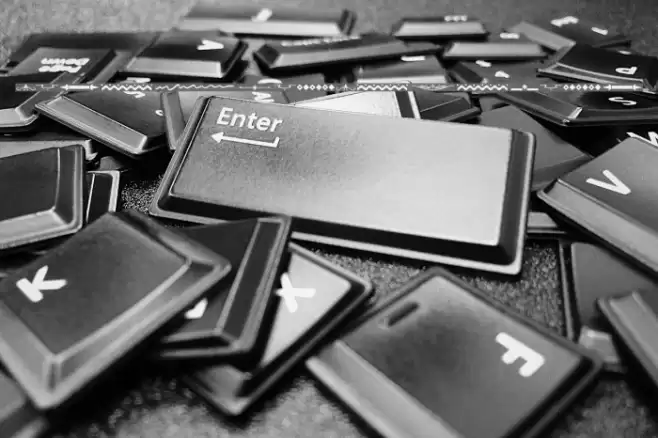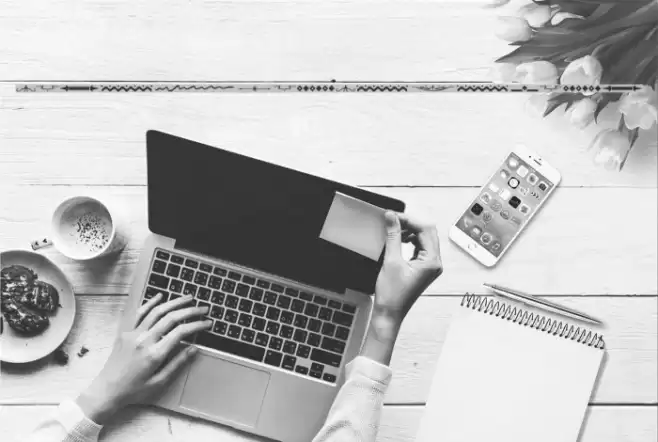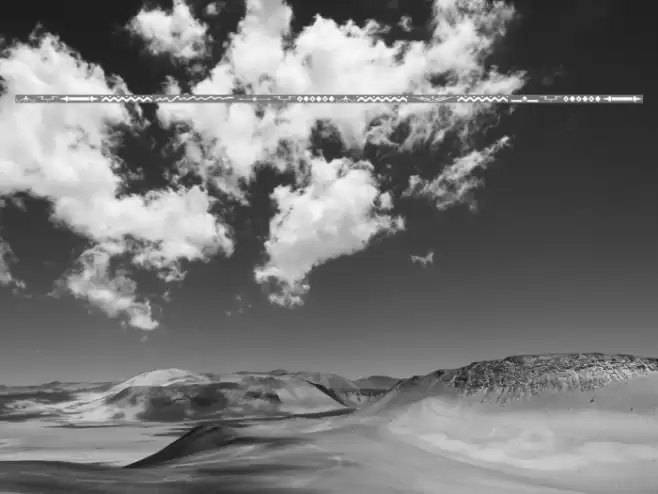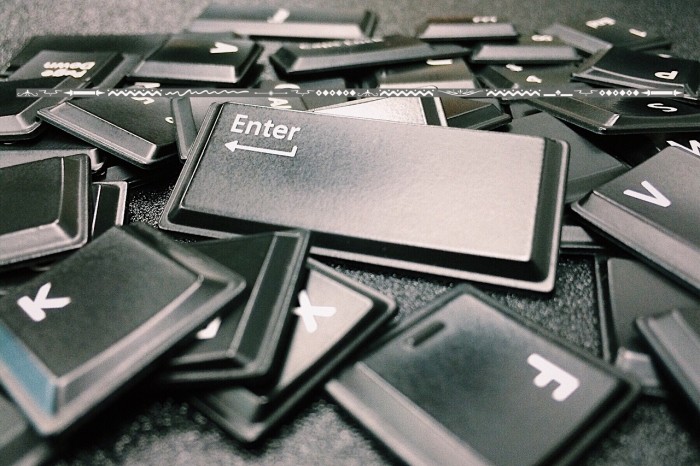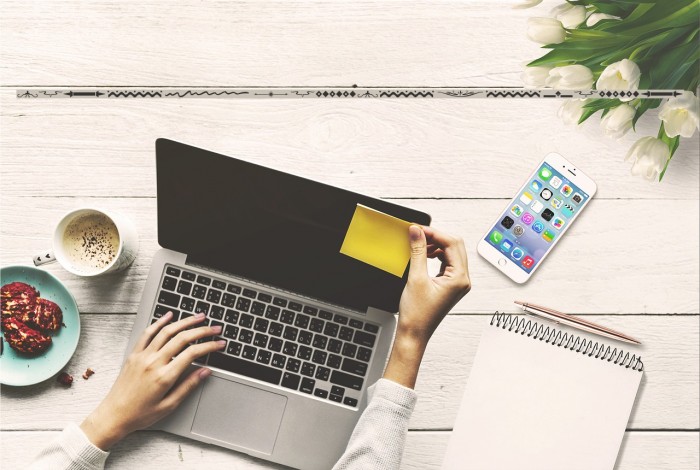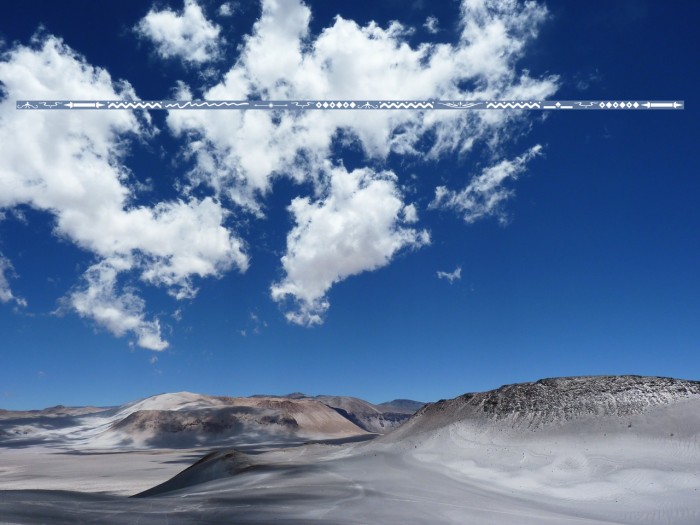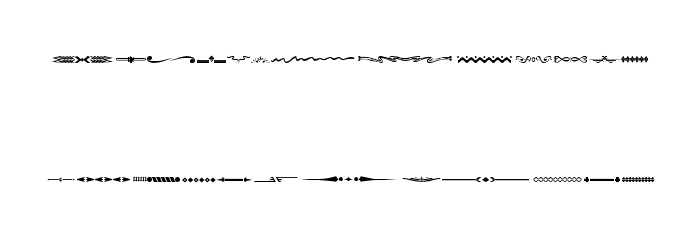
DesignerDividers Font
DesignerDividers Description
A decorative font consisting of various ornate divider designs and rectangular frame glyphs, with intricate linework and geometric shapes. The dividers feature swirls, dots, and symmetrical patterns, while the frames are bold, rectangular outlines.
Ornamental divider and frame glyph set with decorative and geometric styles from Decorative fonts.
- Proposed Projects: Invitations, certificates, decorative borders, digital scrapbooking, graphic design accents.
- Overall Style: Decorative, Ornamental
- Use Case: Borders, Dividers, Frames, Decorative accents